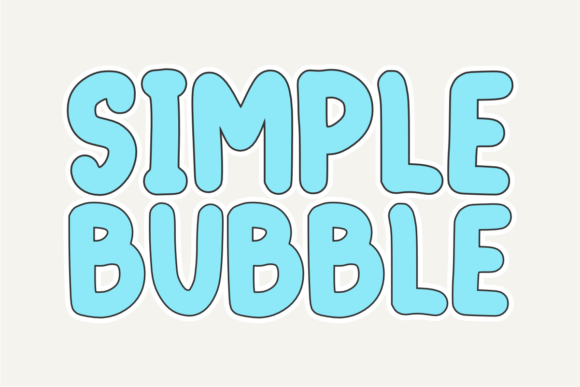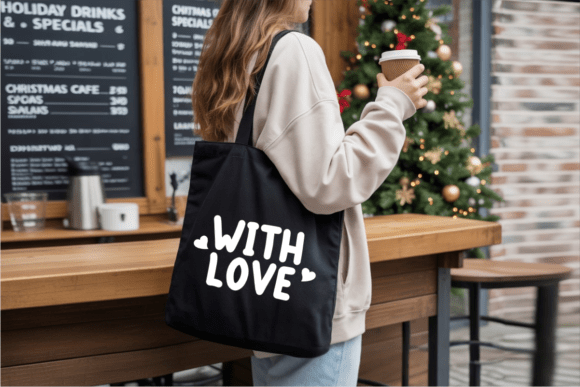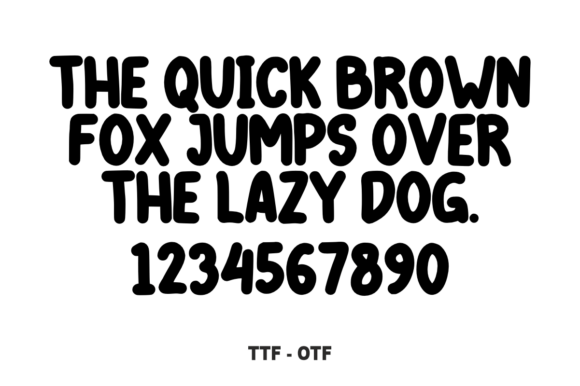
Discover the Delightful World of Clean Bubbles Font 🧼✨
Have you ever been in the middle of a design project, and suddenly, you’re stuck on finding the perfect font? I recall a recent experience where I was crafting custom stickers for a client’s kids’ party, and my usual go-to fonts just weren’t cutting it. The design needed something fresh, playful, and eye-catching. That’s when I stumbled upon Clean Bubbles, a fun and modern bubbly display font that instantly elevated my design game! 🎈
First Impressions: A Love Affair with Clean Bubbles ✨
Clean Bubbles is more than just a font – it’s a design statement. With its smooth, rounded edges and cheerful, bubbly personality, it’s the perfect addition to any project that needs a lighthearted and friendly touch. Here’s what I love about Clean Bubbles:
- ✅ Adorable yet highly readable: Clean Bubbles strikes the perfect balance between being cute and easy to read, making it ideal for a wide range of design projects.
- ✨ Versatile and flexible: Whether you’re designing stickers, apparel, social media graphics, or greeting cards, Clean Bubbles adapts seamlessly to any project.
- 🎨 Clean and modern aesthetic: The font’s contemporary look ensures your designs feel fresh and current.
A Few Quirks to Keep in Mind 🤔
No font is perfect, and Clean Bubbles is no exception. Here are a few minor limitations to consider:
- ⚠️ Legibility at small sizes: While Clean Bubbles is highly readable in general, it may lose some clarity when used at very small sizes (below 10pt). It’s best used at larger sizes where its charm can shine.
- ⚠️ Limited formal tone: Given its playful nature, Clean Bubbles might not be the best fit for projects requiring a formal or professional tone.
The Story Behind Clean Bubbles: A Designer’s Inspiration 📚
Clean Bubbles was born from a desire to create a font that embodies joy and playfulness. The designer, inspired by childhood memories of blowing bubbles and watching them float gently through the air, aimed to capture that carefree essence in a typeface. The result is a font that’s not only fun but also surprisingly versatile.
Frequently Asked Questions 🤔
| What type of projects is Clean Bubbles best suited for? | Clean Bubbles is perfect for sticker design, kids’ clothing, social media quotes, greeting cards, nursery decor, and classroom materials. |
| Is Clean Bubbles easy to read? | Clean Bubbles is designed to be highly readable, especially at larger sizes. However, it may be less clear at very small sizes. |
Clean Bubbles is more than just a font – it’s a way to add a dash of fun and whimsy to your designs. Whether you’re a professional designer or a creative hobbyist, this bubbly font is sure to bring a smile to your face and a sparkle to your projects! 🧼💖
| Font Name | Clean Bubbles Font |
| Author | Sahira Studio |